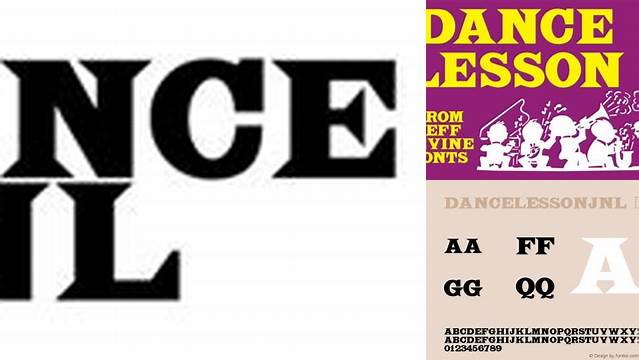
Are you guys looking to add a touch of vintage charm to your design projects? Look no further! The Dance Lesson JNL font is your perfect solution. This font, with its distinctive retro style, brings an air of nostalgia and elegance to any creative endeavor. Whether you're designing posters, invitations, logos, or even website headers, Dance Lesson JNL is sure to make your work stand out. Its unique character set and smooth lines evoke the classic dance hall era, making it an ideal choice for projects that need that vintage feel. Dance Lesson JNL is not just about aesthetics; it's also about functionality. This font is designed to be legible and versatile, ensuring that your message is conveyed clearly while maintaining its stylistic appeal. The font’s curves and letterforms are crafted meticulously, providing a balanced and harmonious visual experience. This makes it a go-to option for designers who want to create compelling visuals that resonate with their audience. Let's dive deeper into what makes this font so special and how you can get your hands on a free TTF download.
When it comes to incorporating a touch of nostalgia into your design work, Dance Lesson JNL font really hits the mark. Think about the classic dance halls and vintage signage—this font captures that essence perfectly. The retro aesthetic of Dance Lesson JNL makes it an amazing choice for a variety of projects. Imagine using it for wedding invitations, giving them a sophisticated and timeless feel. Or perhaps you’re designing a poster for a themed party; this font will instantly transport your audience back in time. Logos, too, can benefit from the unique character of Dance Lesson JNL, especially if you're aiming for a brand identity that exudes classic charm and elegance. The versatility of Dance Lesson JNL extends beyond print materials. It works exceptionally well on digital platforms, such as websites and social media graphics. Using it for headers or call-to-action buttons can give your online presence a distinctive and memorable look. The font's readability ensures that your message remains clear and impactful, regardless of the medium. Its ability to bridge the gap between vintage aesthetics and modern design needs is what makes Dance Lesson JNL a valuable addition to any designer’s toolkit. Moreover, the meticulous craftsmanship behind Dance Lesson JNL is evident in its smooth lines and balanced letterforms. This attention to detail ensures that the font looks professional and polished in any context. Whether you’re a seasoned designer or just starting, Dance Lesson JNL offers a way to elevate your projects with a touch of timeless style. Its unique character and broad applicability make it a font that you’ll find yourself reaching for time and again.
Dance Lesson JNL font isn't just a visually appealing typeface; it’s a tool that can significantly enhance the emotional impact of your designs. The font's elegant curves and classic letterforms evoke a sense of nostalgia, making it perfect for projects aiming to create an emotional connection with the viewer. If you're working on a project that needs to convey a sense of history, sophistication, or timelessness, Dance Lesson JNL is an excellent choice. Think about using it for a historical fiction book cover, a vintage-themed event invitation, or even a brand identity for a business with a heritage story. Its distinctive style can add depth and authenticity to your message, making it resonate more powerfully with your audience. The versatility of Dance Lesson JNL also allows it to be used in modern contexts. Pairing it with contemporary design elements can create a striking contrast, resulting in visually dynamic and memorable designs. For instance, you could use it for website headers to give your site a unique, vintage-inspired touch while maintaining a modern, clean layout. This balance between old and new can be particularly effective in branding, helping your business stand out in a crowded market. Beyond its aesthetic qualities, Dance Lesson JNL is also designed with usability in mind. The font's clear and legible characters ensure that your text is easily readable, whether it's in print or on screen. This is crucial for maintaining the clarity of your message and ensuring that your design is effective. By combining visual appeal with practical functionality, Dance Lesson JNL provides a comprehensive solution for a wide range of design needs. This makes it a valuable asset for any designer looking to add a touch of classic elegance to their work. Its ability to evoke emotions and enhance the overall impact of a design is what sets Dance Lesson JNL apart.
Choosing the right font is crucial for any design project, and Dance Lesson JNL offers several compelling reasons to make it your go-to choice. First and foremost, its unique aesthetic provides a distinct vintage feel that can set your designs apart. In a world saturated with modern, sans-serif fonts, Dance Lesson JNL’s classic letterforms offer a refreshing alternative. This makes it an excellent option for projects aiming to stand out and make a lasting impression. Imagine using it for a restaurant menu, a theater poster, or even a personal blog header; its distinctive style will immediately catch the eye. The font's ability to evoke nostalgia also adds an emotional layer to your designs, making them more relatable and engaging. Another key advantage of Dance Lesson JNL is its versatility. While it excels in vintage-themed projects, it can also be effectively used in contemporary designs. By pairing it with modern graphics and layouts, you can create a dynamic contrast that adds visual interest. For example, you might use Dance Lesson JNL for the title of a modern art exhibition poster, creating a juxtaposition that intrigues and captivates. This adaptability makes it a valuable asset for designers working across different styles and mediums. Whether you’re designing for print or digital platforms, Dance Lesson JNL can adapt seamlessly. Its clear and legible characters ensure that your message remains readable, regardless of the context. This is particularly important for projects where readability is paramount, such as websites and marketing materials. The font’s design also includes various weights and styles, allowing you to further customize its appearance to suit your specific needs.
The adaptability of Dance Lesson JNL extends to various design applications, making it a versatile tool in any designer's arsenal. Its classic aesthetic is perfect for projects aiming to evoke a sense of nostalgia or historical charm. Picture using it for a vintage-inspired wedding invitation, instantly giving it an elegant and timeless feel. Or consider applying it to the branding of a heritage-based company, where it can effectively communicate the brand's history and values. Its unique letterforms make it an excellent choice for logos, packaging, and marketing materials, ensuring that your brand stands out with a distinctive look. Dance Lesson JNL also shines in digital environments. Using it for website headers or call-to-action buttons can give your online presence a touch of sophistication and personality. Its legibility ensures that your message remains clear and impactful, even on smaller screens. This makes it a smart choice for businesses looking to enhance their digital branding while maintaining a classic appeal. Moreover, the emotional impact of Dance Lesson JNL should not be underestimated. The font’s elegant curves and refined details evoke feelings of sophistication and grace, making it perfect for projects that aim to create an emotional connection with the viewer. For instance, using it in a book cover design can instantly draw readers in, hinting at the story’s timeless themes and character depth. Similarly, it can add a touch of elegance to invitations, posters, and other promotional materials, making them more engaging and memorable. Dance Lesson JNL’s capacity to blend seamlessly with different design elements is another significant advantage. Its classic design allows it to pair well with both modern and traditional graphics, giving you the flexibility to create visually striking compositions. Whether you’re working on a minimalist design or a more elaborate layout, Dance Lesson JNL can complement your vision and enhance the overall aesthetic.
Furthermore, Dance Lesson JNL font isn’t just about visual appeal; it's also about practicality. The font is designed to be user-friendly and easily integrated into your design workflow. It supports a wide range of characters and symbols, ensuring that you have the tools you need to communicate effectively. This comprehensive character set is essential for designers working on projects with diverse linguistic requirements or those who need to incorporate special symbols and glyphs. In addition to its practical aspects, Dance Lesson JNL’s distinctive style can also help your designs achieve a higher level of memorability. In today’s competitive landscape, standing out is more important than ever. By using a unique font like Dance Lesson JNL, you can create designs that capture attention and stick in people’s minds. This is particularly valuable for branding, where consistency and recognition are key to building a strong identity. Whether you’re creating a logo, designing marketing materials, or crafting a website, Dance Lesson JNL can help you establish a memorable visual presence. The font's elegant and timeless quality also makes it a versatile choice for a wide range of applications. From print to digital, Dance Lesson JNL maintains its visual impact and readability. This adaptability means you can use it across all your design projects, ensuring a cohesive and professional look. Whether you’re designing a business card, a brochure, or a social media campaign, Dance Lesson JNL can help you achieve a consistent and polished brand image. Its ability to adapt to different media and design styles makes it a valuable asset for any designer looking to create impactful and memorable visuals.
By incorporating this font into your projects, you're not just adding a typeface; you're adding a piece of history and a touch of timeless beauty. Its ability to blend seamlessly with various design elements makes it a versatile and reliable choice for both print and digital media. Whether you're a seasoned designer or just starting, Dance Lesson JNL offers a way to elevate your work and create designs that truly stand out. Its classic appeal and modern usability make it a font that you'll find yourself reaching for time and time again. So, download it today, explore its possibilities, and let Dance Lesson JNL inspire your next creative masterpiece. The world of design is constantly evolving, but the beauty of a well-crafted font remains timeless. Dance Lesson JNL is a testament to this enduring quality, offering a unique and elegant voice to your creative vision.